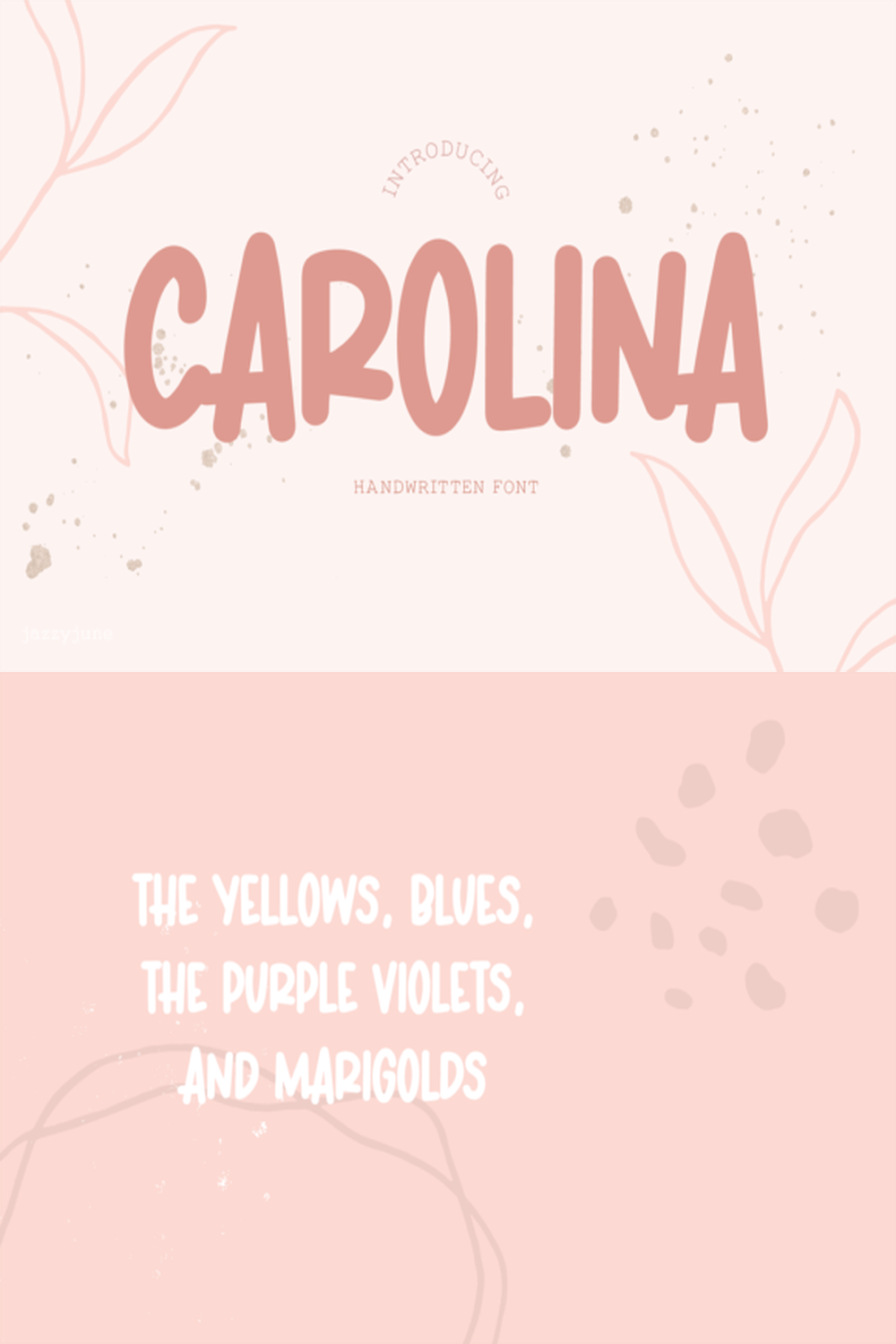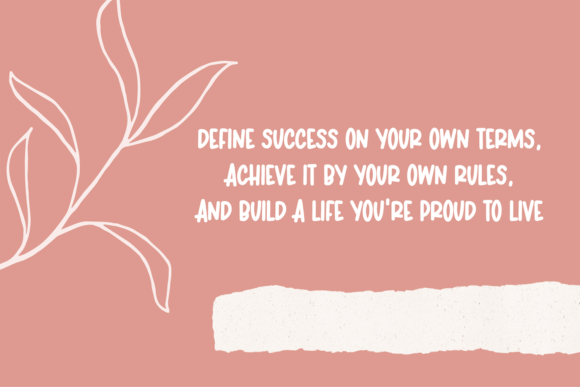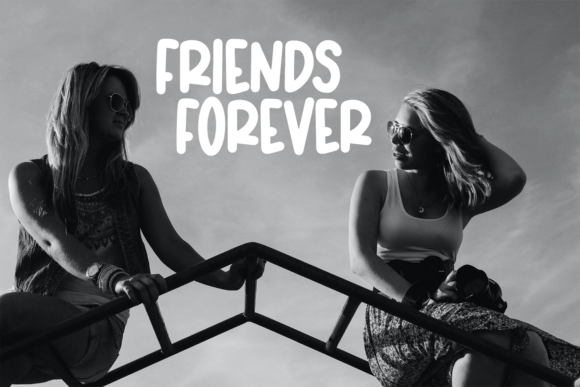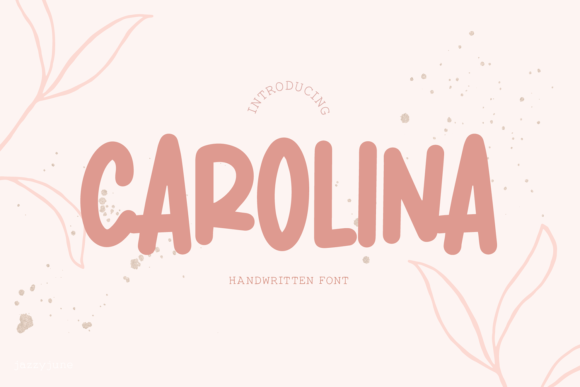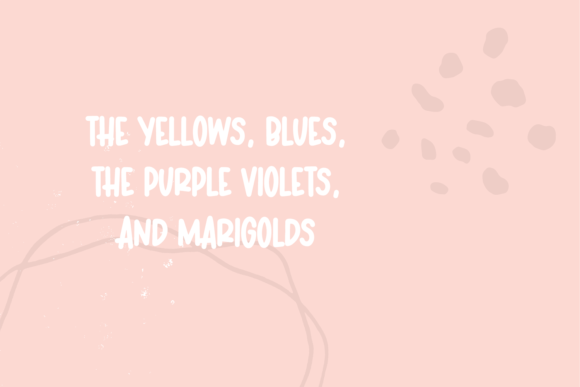
Carolina Font: A Cute Handwritten Font for Cricut & Crafts
About the Carolina Font
The wait is over! The incredible Carolina Font is now available for your design toolkit. Carolina is a bold and simple script font. Simple and easy to use, this font will be very beautiful if you mix it with your various craft designs.
Carolina Font Usage Examples